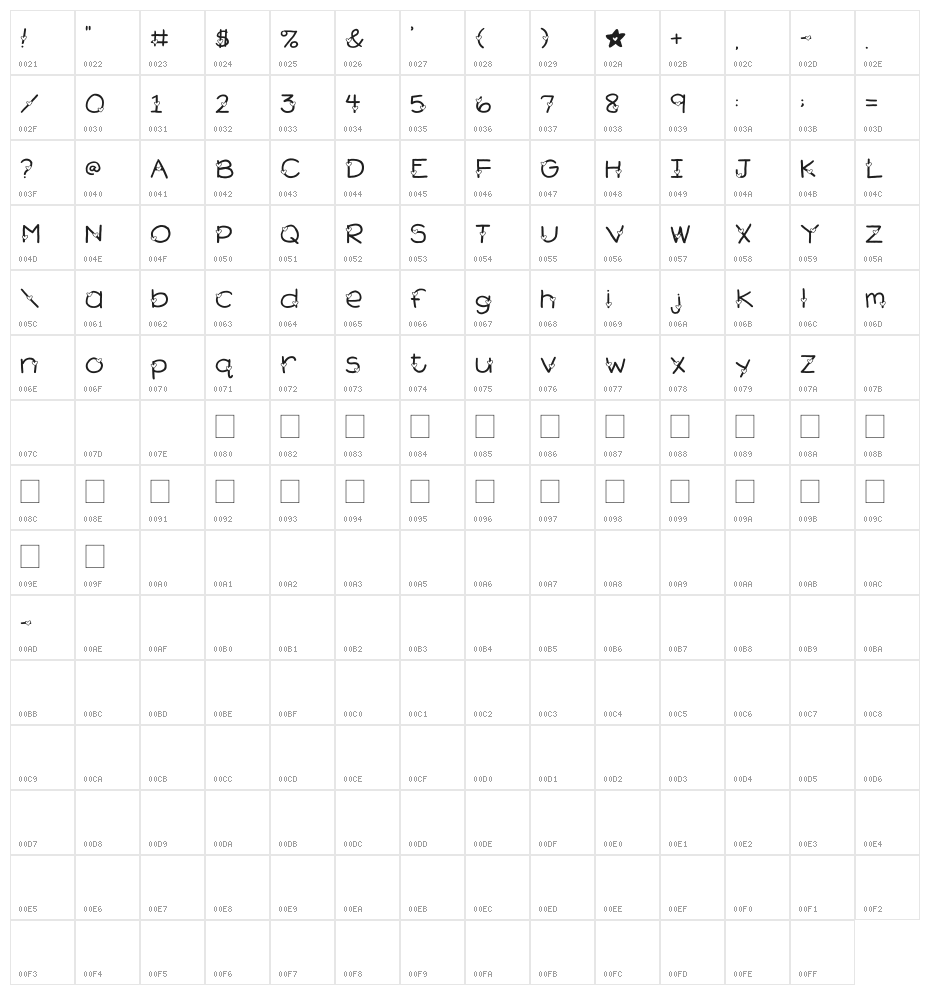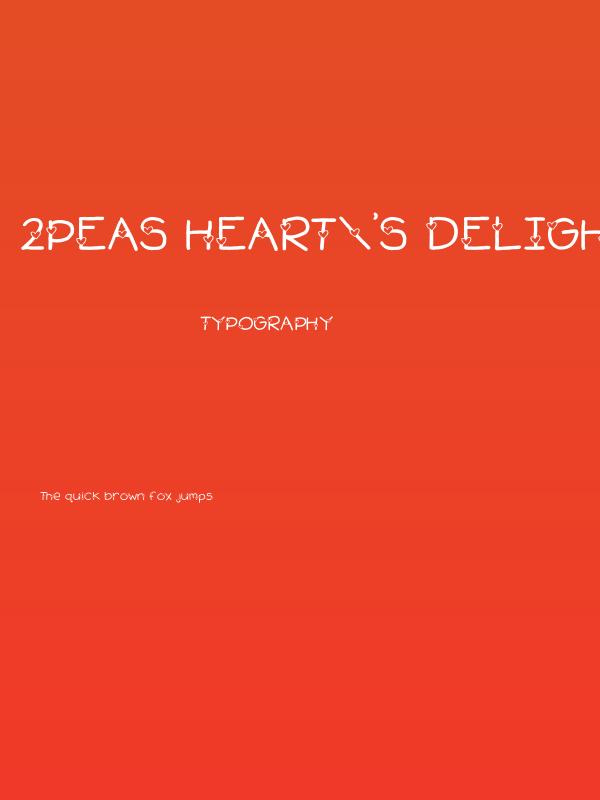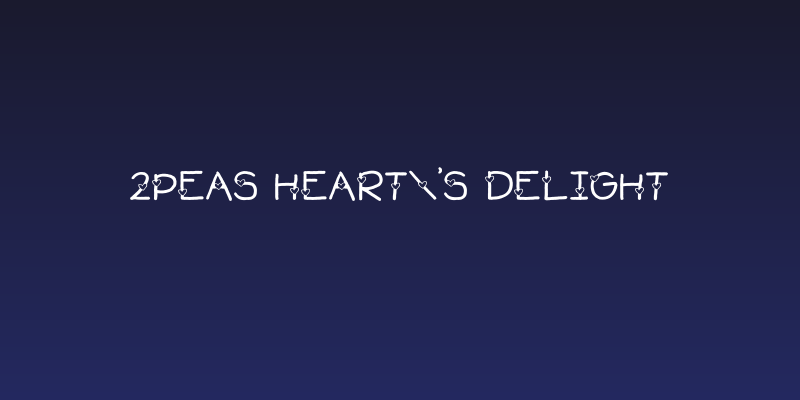
2Peas Heart's Delight Font
| Stile generale | Whimsical, Playful, Romantic |
| Caso d'uso | Headlines, Logos, Invitations |
| Progetti proposti | Wedding invitations, Valentine's Day cards, romantic branding, children's materials. |